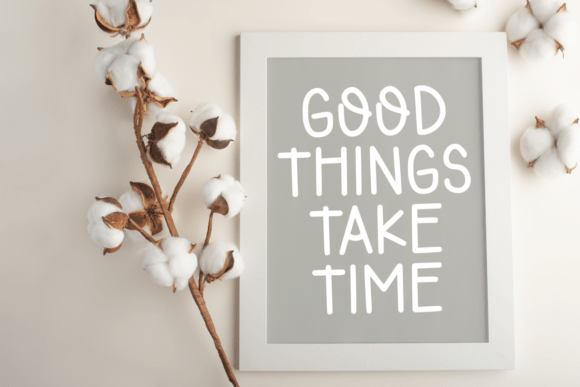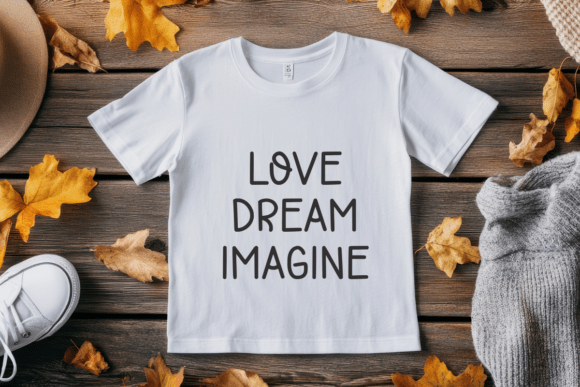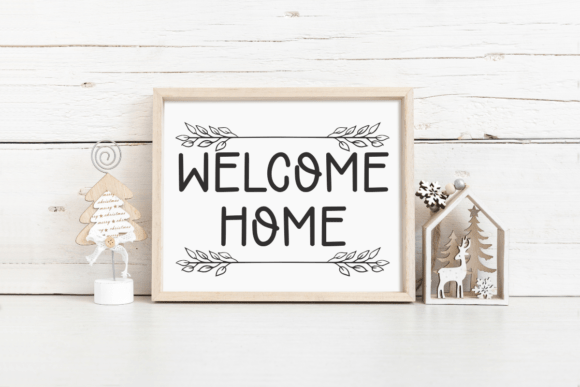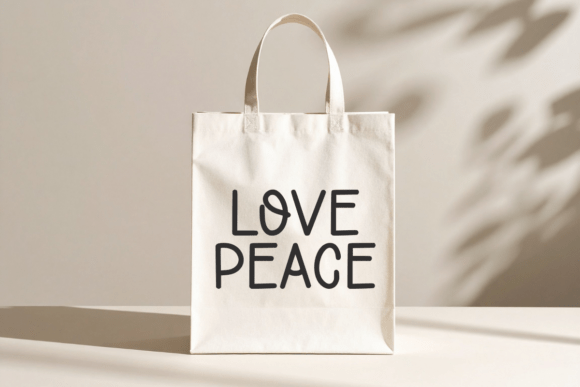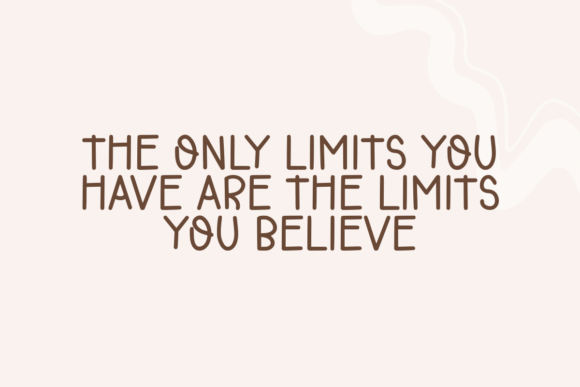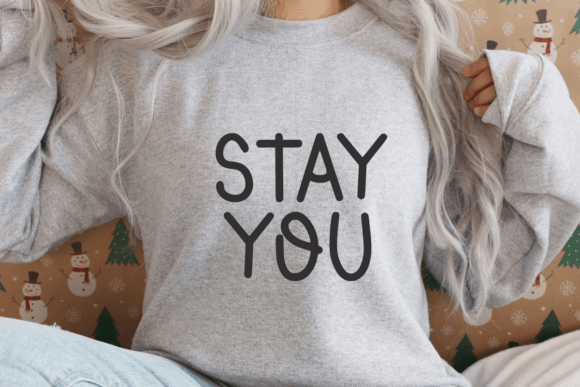
Frosty Window Font: The Perfect Handwriting Font for Crafty Projects
Are you a crafter, designer, or DIY enthusiast looking for a font that adds a touch of warmth and personality to your projects? Look no further than Frosty Window Font, a cute handwriting font designed with a soft, friendly, and natural look. In this article, we’ll explore the features and benefits of Frosty Window Font, and how it can elevate your craft projects, planners, stickers, kids’ worksheets, classroom printables, and DIY designs.
What is Frosty Window Font?
Frosty Window Font is a handwriting font that exudes a warm, handcrafted feeling. Its simple strokes and smooth curves make it easy to read and use in a variety of projects. The font’s soft and friendly look is perfect for crafty projects that require a personal touch. Whether you’re creating quotes, greeting cards, kids’ labels, coloring pages, worksheets, bullet journals, scrapbooks, or playful graphic projects, Frosty Window Font is the perfect choice.
Key Features of Frosty Window Font
- Soft and Friendly Look: Frosty Window Font has a soft and friendly look that adds a touch of warmth to your projects.
- Handcrafted Feeling: The font’s simple strokes and smooth curves give it a handcrafted feeling that’s perfect for crafty projects.
- Easy to Cut: Frosty Window Font is easy to cut using Cricut and Silhouette machines, making it perfect for crafters who love to work with vinyl, paper, and other materials.
- Versatile: The font is versatile and can be used in a variety of projects, from quotes and greeting cards to kids’ labels and worksheets.
Benefits of Using Frosty Window Font
Using Frosty Window Font in your projects offers several benefits. Firstly, it adds a personal touch to your designs, making them more relatable and engaging. Secondly, the font’s soft and friendly look creates a warm and inviting atmosphere, perfect for crafty projects that require a personal touch. Finally, Frosty Window Font is easy to use and cuts well with Cricut and Silhouette machines, making it a great choice for crafters who love to work with different materials.
Project Ideas Using Frosty Window Font
Frosty Window Font is perfect for a variety of projects, including:
- Quotes and Greeting Cards: Use Frosty Window Font to create beautiful quotes and greeting cards that add a personal touch.
- Kids’ Labels and Worksheets: The font is perfect for creating kids’ labels, worksheets, and coloring pages that are fun and engaging.
- Bullet Journals and Scrapbooks: Frosty Window Font is a great choice for bullet journals and scrapbooks, adding a personal touch to your layouts.
- DIY Designs and Craft Projects: Use Frosty Window Font to create beautiful DIY designs and craft projects, such as signs, banners, and decorations.
Tips for Using Frosty Window Font
Here are some tips for using Frosty Window Font in your projects:
- Experiment with Colors: Frosty Window Font looks great in a variety of colors, so don’t be afraid to experiment and find the perfect color for your project.
- Mix and Match with Other Fonts: The font pairs well with other fonts, so feel free to mix and match to create a unique look.
- Use it for Titles and Headings: Frosty Window Font is perfect for titles and headings, adding a touch of personality to your projects.
Frosty Window Font is a versatile and adorable handwriting font that’s perfect for crafty projects, planners, stickers, kids’ worksheets, classroom printables, and DIY designs. Its soft and friendly look, handcrafted feeling, and ease of use make it a great choice for designers and crafters. Whether you’re creating quotes, greeting cards, kids’ labels, coloring pages, worksheets, bullet journals, scrapbooks, or playful graphic projects, Frosty Window Font is the perfect choice. So why not give it a try and see how it can elevate your projects?